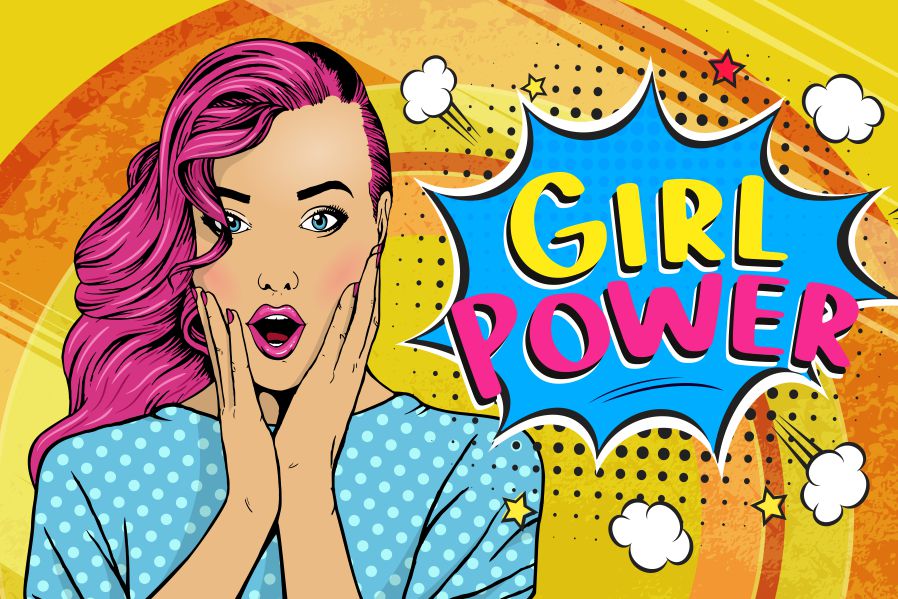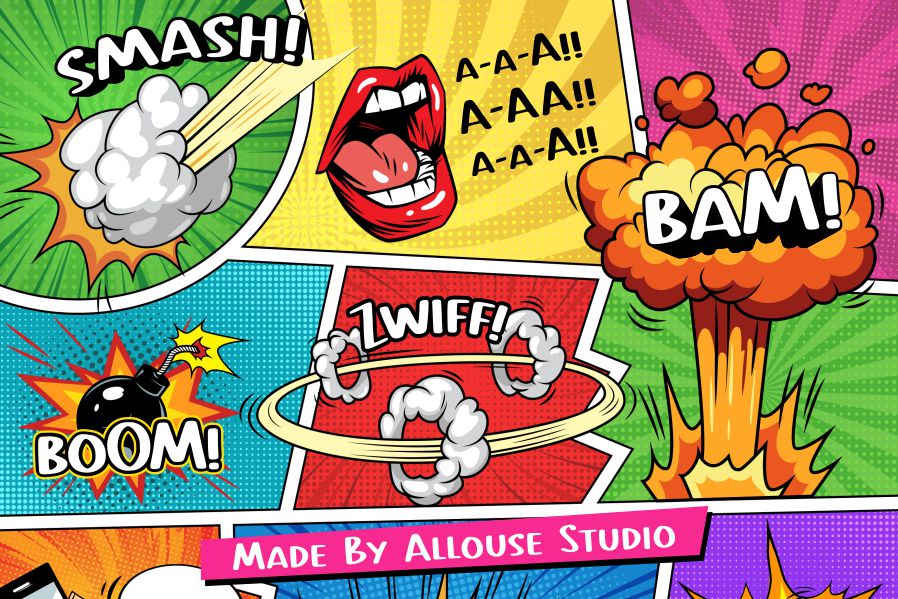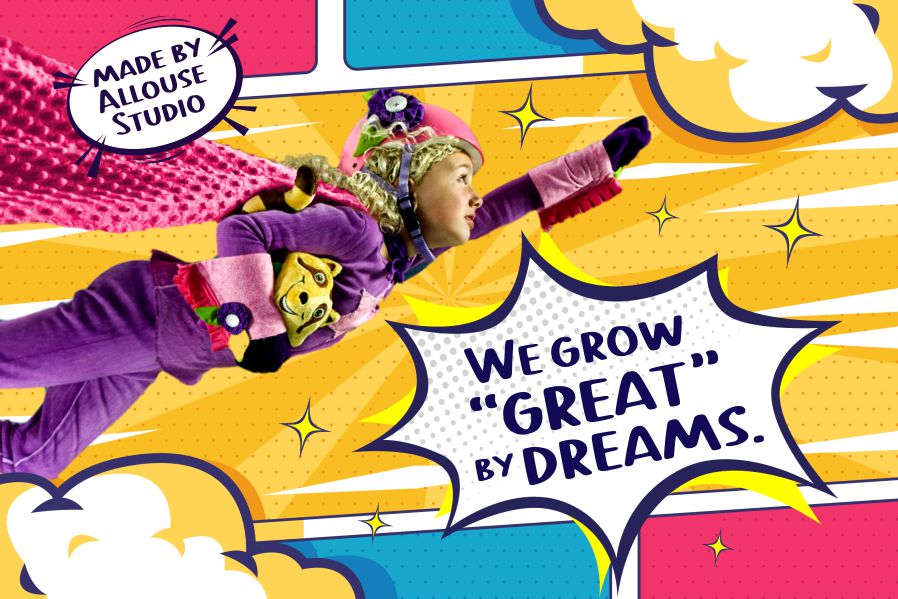
Rowstead Font
Rowstead Display Font
This is A Friendly Comic Font. Rowstead is perfect for product packaging, branding project, megazine, social media, wedding, or just used to express words above the background.